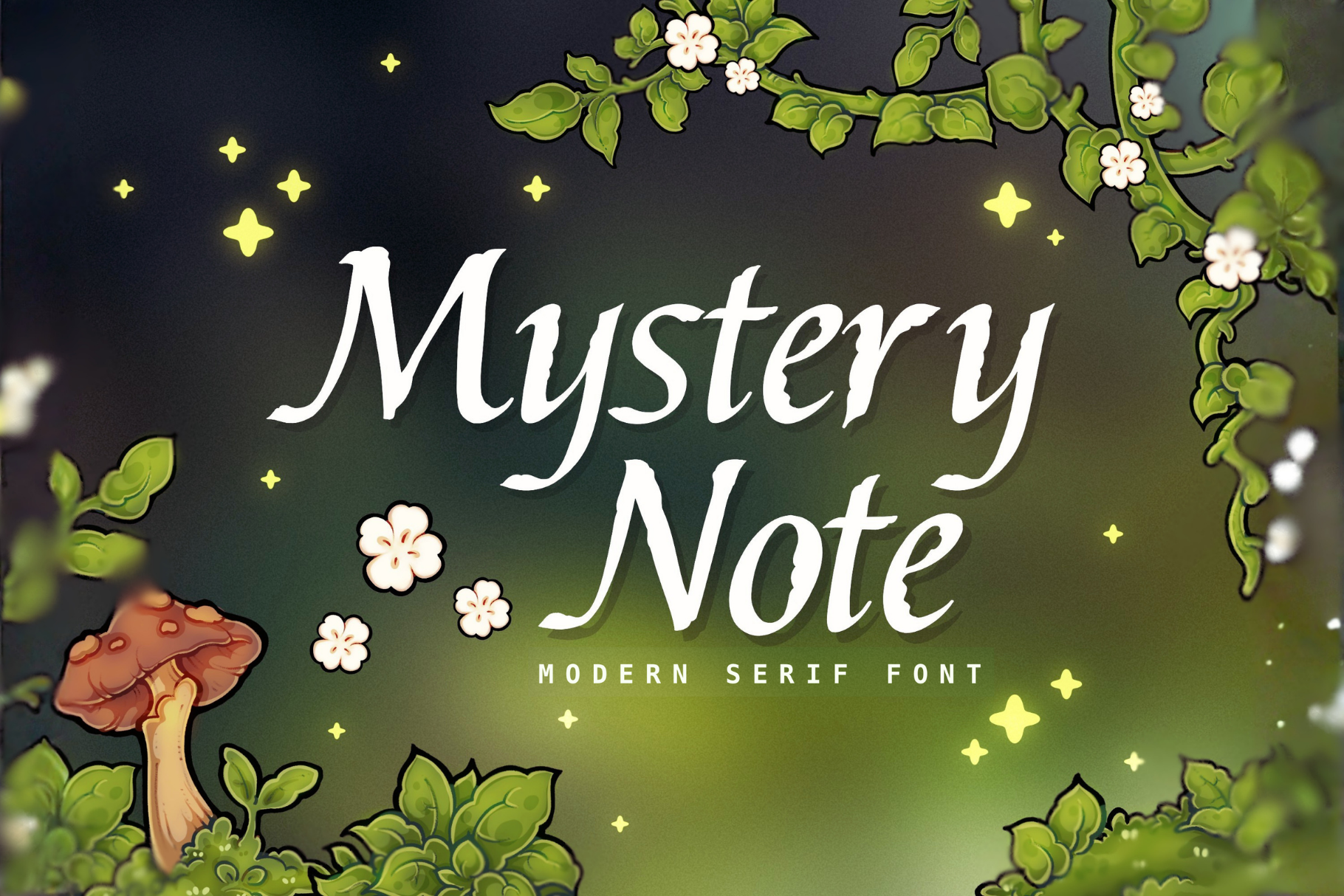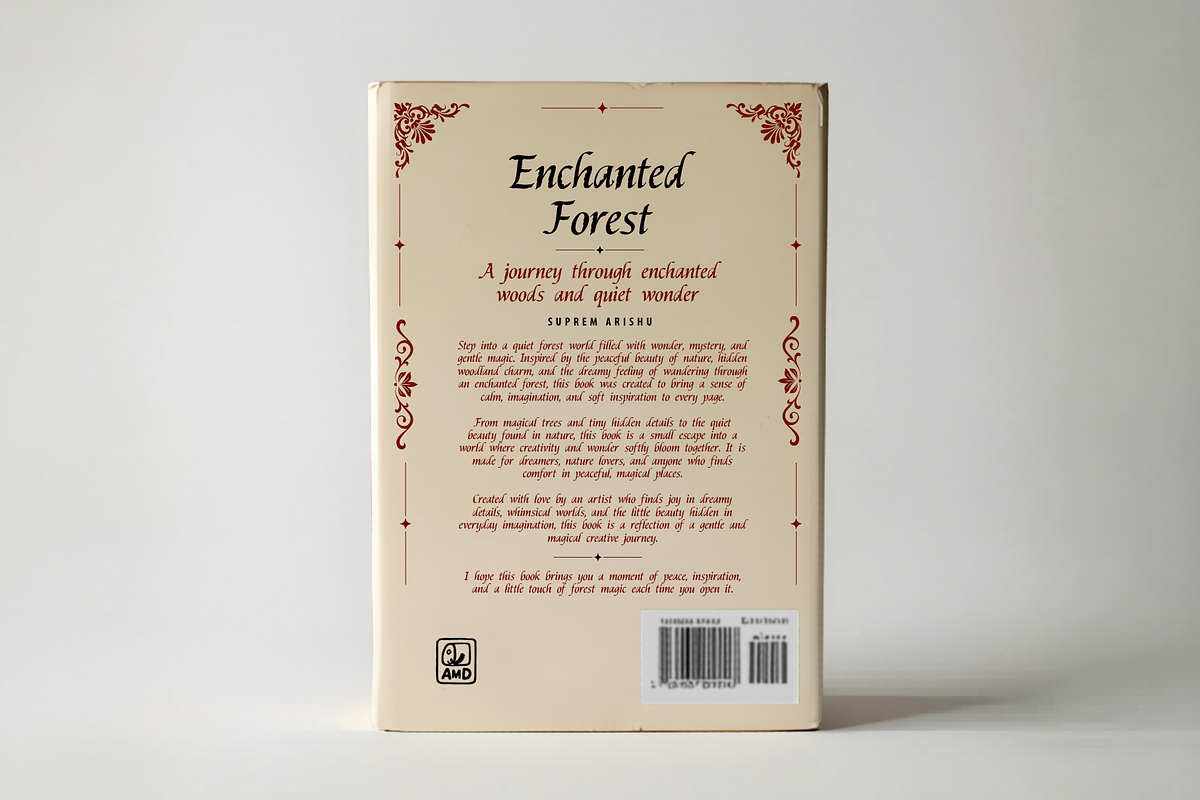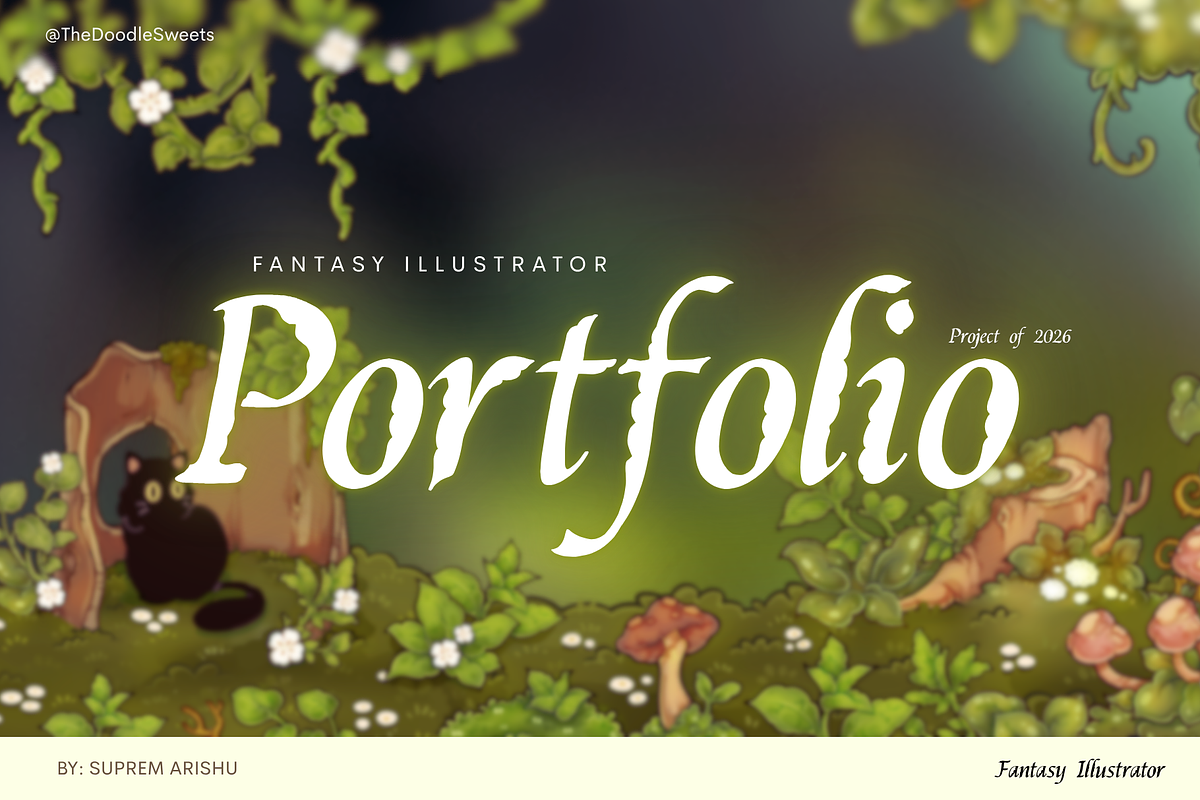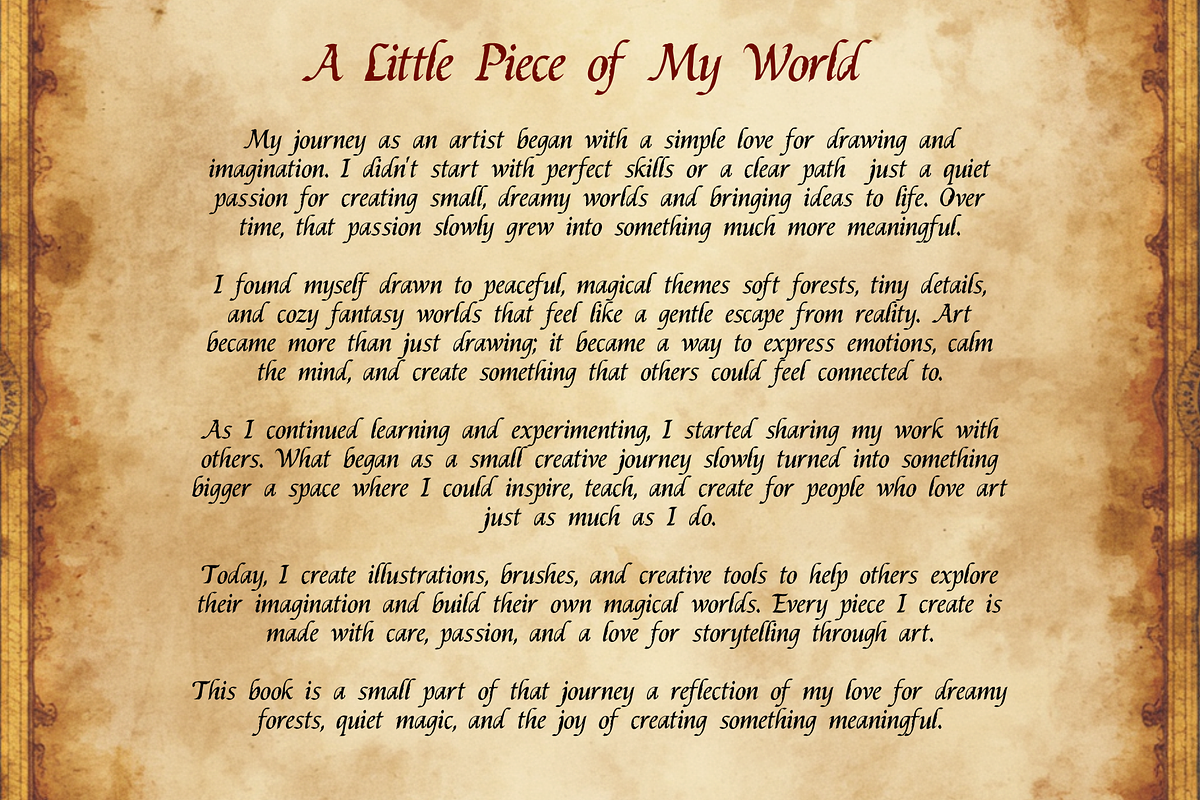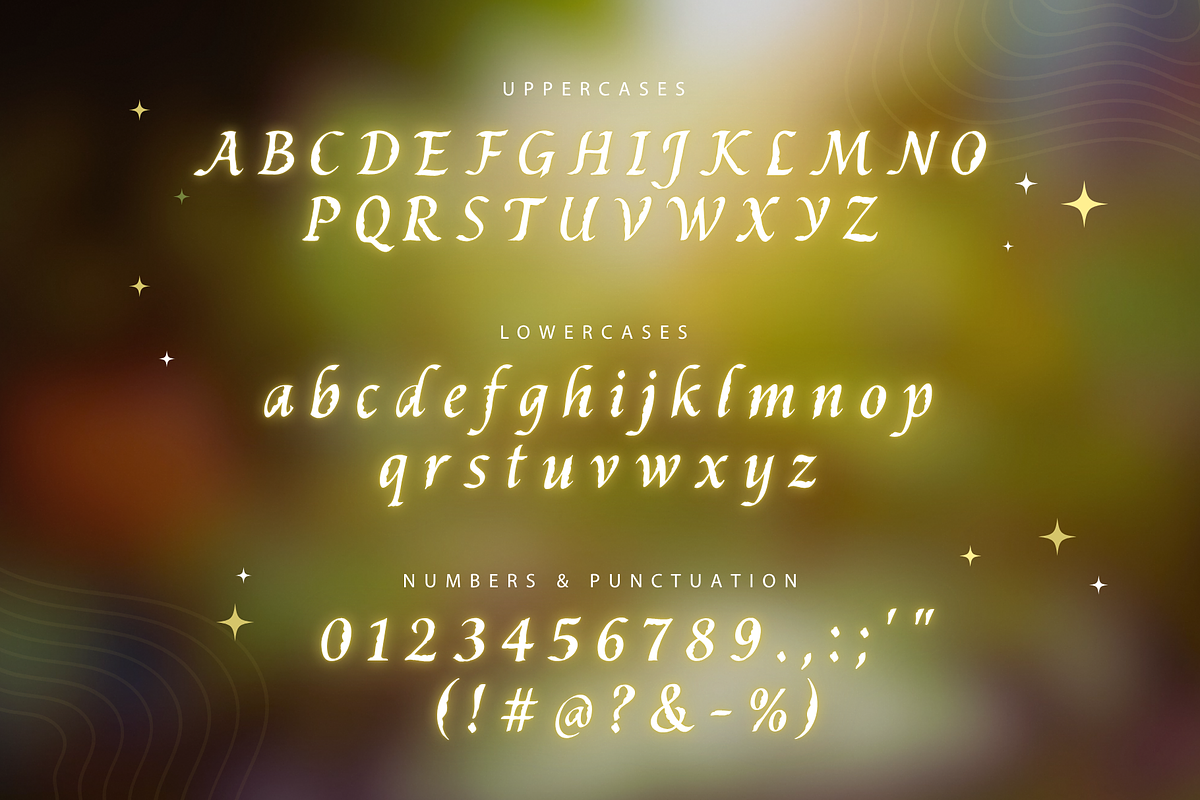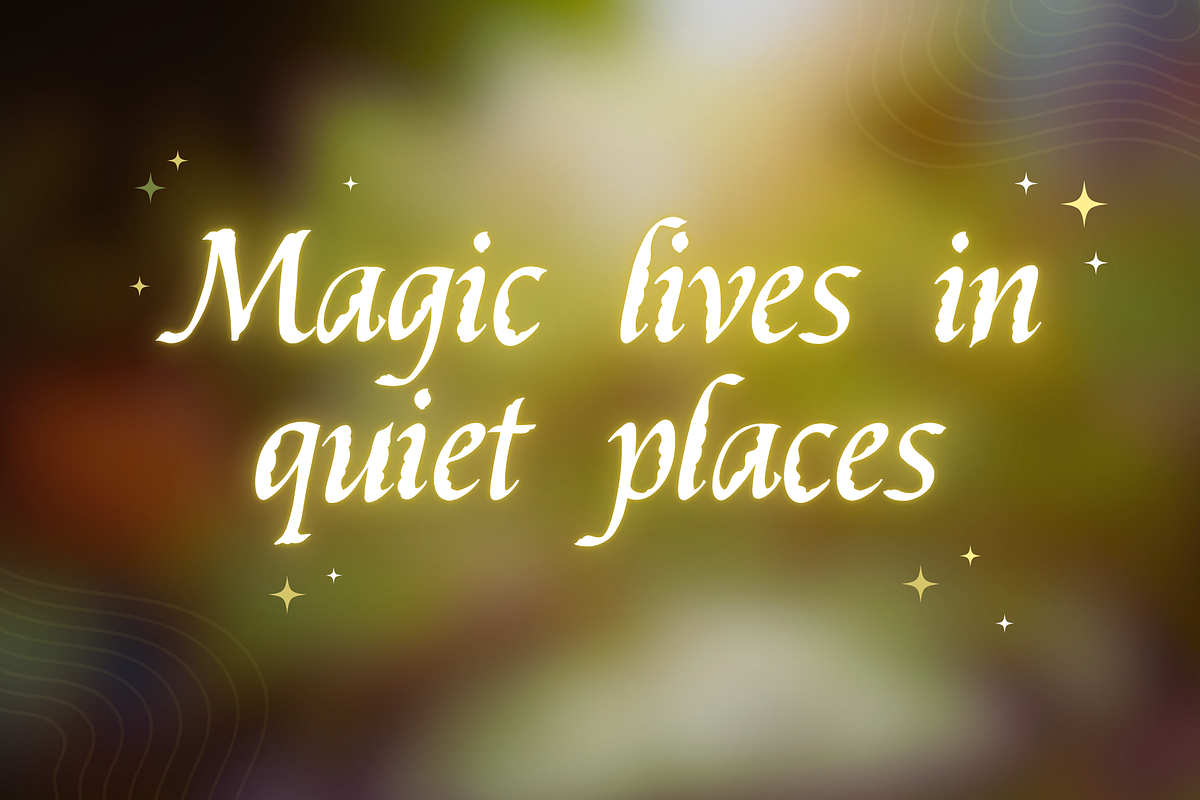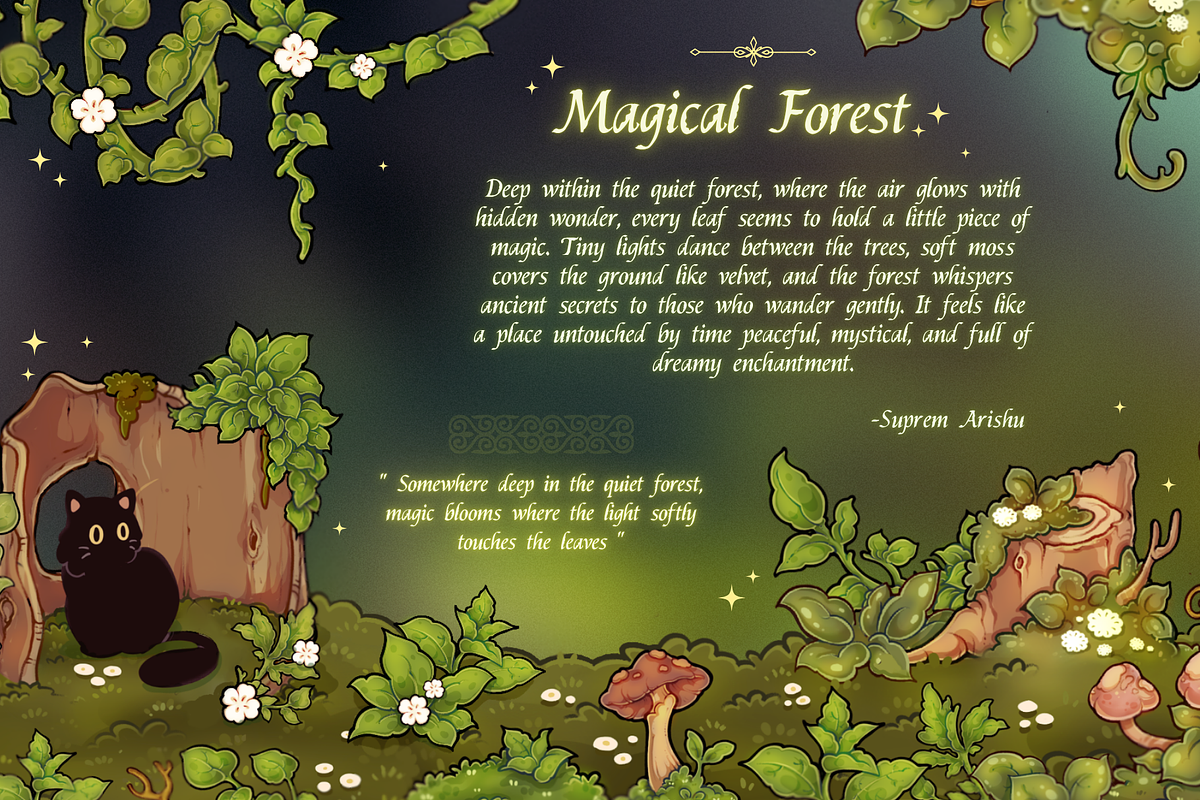
Mystery Note - Modern Serif Font
Bring a touch of forest magic to your designs with this whimsical font, perfect for adding a cozy, mystical, and enchanting feel to your creative projects. You will receive the font in OTF file format, including uppercase letters, lowercase letters, special characters, and punctuation.